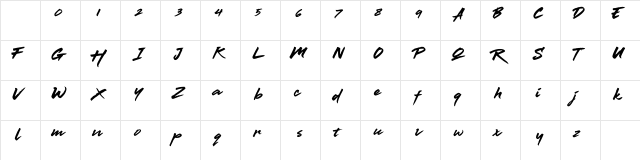
Thander Regular
Design Context for Thander Typeface
Thander flows with the natural rhythm of handwritten lettering, making it ideal for designs that call for warmth and personal expression.
Font Pairing: Combine Thander with a simple geometric sans for maximum contrast — the tension between flowing curves and clean structure is a classic typographic pairing.
Pro Tip: Use Thander for short runs of text — names, titles, or taglines. Extended body copy in script faces tires the eye quickly.